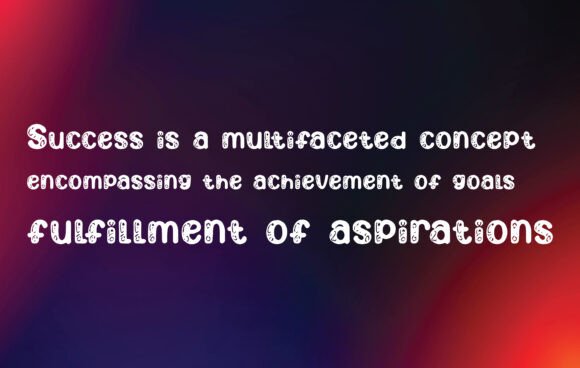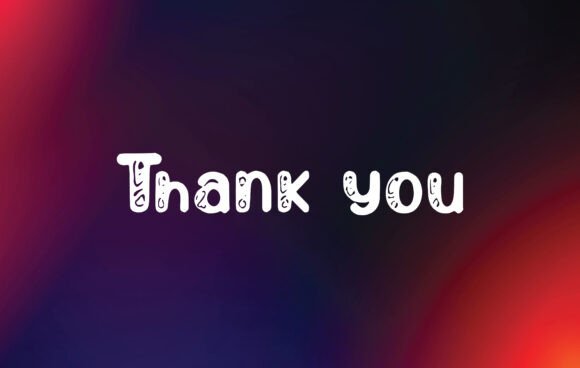
The Magic of Brielle Font: Elevate Your Designs with this Beautiful Handwritten Font
I still remember the frustration of working on a logo design project, only to hit a roadblock when searching for the perfect font. My client wanted something elegant, yet playful; something that would make their brand stand out. That’s when I stumbled upon the Brielle font, and it was love at first sight! ✨ In this article, I’ll share my experience with this lovely handwritten font, its features, and how to make the most of it in your designs.
An Honest Review of Brielle Font
What I Love About Brielle Font
• 💫 Elegant and Playful: Brielle font strikes the perfect balance between elegance and playfulness, making it suitable for a wide range of design projects.
• ✅ Highly Versatile: This font can be used for logos, branding, quotes, and more, giving you endless creative possibilities.
• ✨ Unique Character: Each letter has a distinct personality, adding a touch of whimsy to your designs.
• 💯 Easy to Read: Despite its creative flair, Brielle font remains highly legible, even at smaller sizes.
While Brielle font is amazing, there are a few things to keep in mind: 🤔
• ⚠️ Limited Use in Small Sizes: While legible, Brielle font may lose some of its charm when used in very small sizes (e.g., below 10pt). It’s best used at larger sizes where its unique character can shine.
• ⚠️ Pairing Challenges: Due to its distinctive style, Brielle font can be tricky to pair with other fonts. Experiment with different combinations to find the perfect match.
The Story Behind Brielle Font
Brielle font was designed with the intention of creating a beautiful, handwritten font that would inspire creativity. Its designer aimed to craft a font that would be both elegant and playful, making it perfect for a wide range of design projects.
Font Name Brielle Font
Author moonlight craft
Q: What type of projects is Brielle font best suited for?
Brielle font is ideal for logos, branding, quotes, and any project that requires a touch of elegance and playfulness.